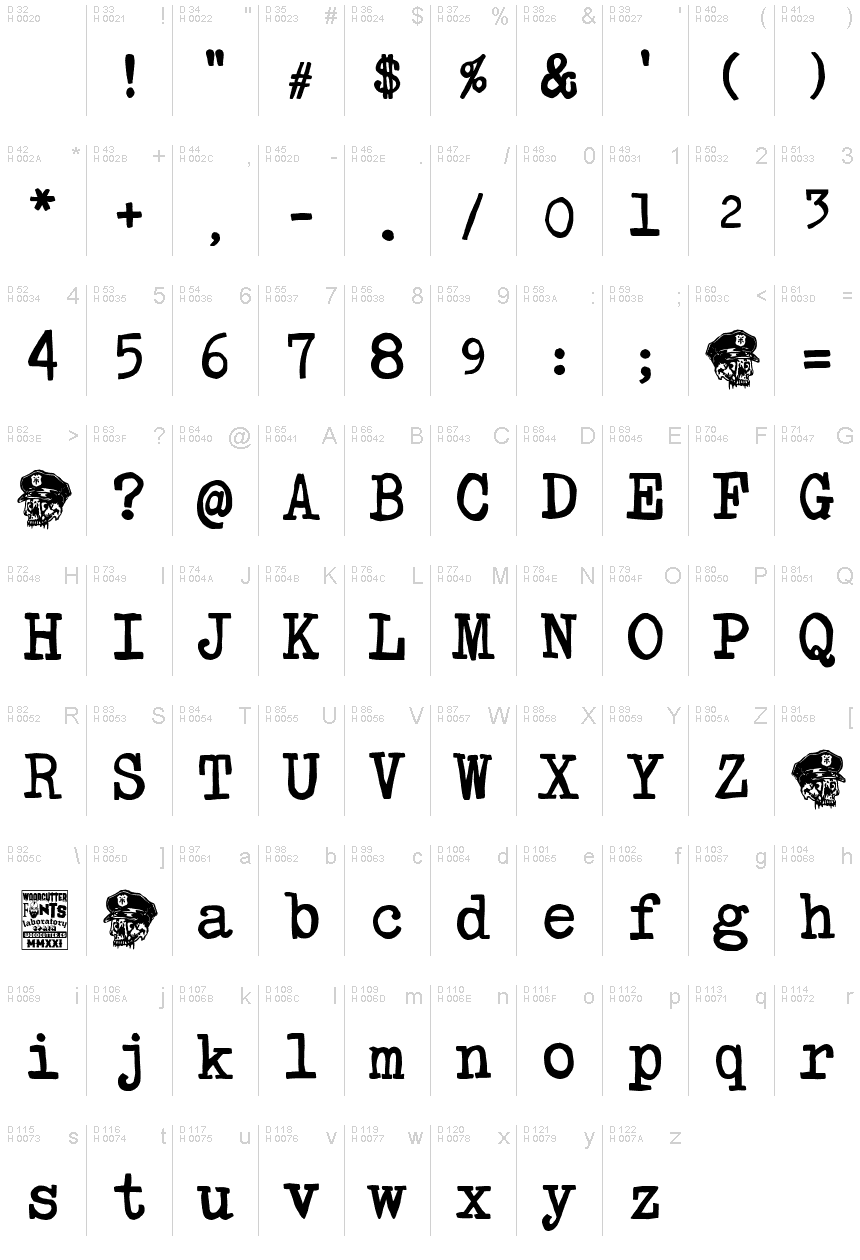
Formulario 1312
Formulario 1312, designed by Woodcutter, is a display font with an eroded typewriter style. This unique font captures the vintage feel of old typewriters while still maintaining a modern edge. Its rough edges and imperfect lines add character to any project, making it perfect for vintage-inspired designs or projects that require a rustic feel. The semi-bold font width makes it ideal for headlines and titles while the narrow width lends itself well to body text. Use Formulario 1312 in your next poster design, branding project or editorial layout for an eye-catching effect that stands out from the crowd.